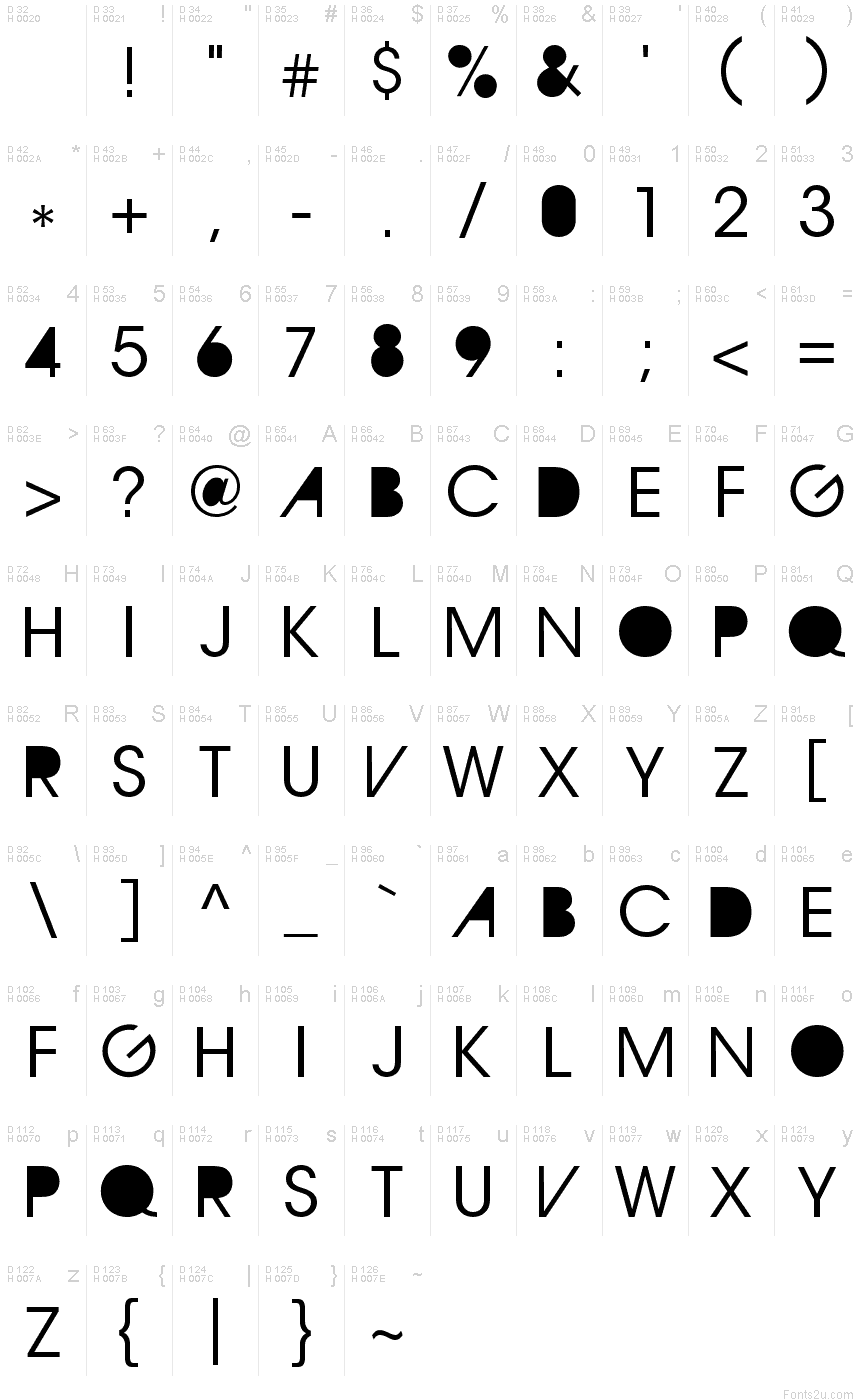
BM Sham Garde is a free experimental geometric display font built around abrupt shifts between hairline strokes and solid, oversized forms. Its clean circles, straight uprights, and steep diagonals create a stark modernist silhouette, with sharply cut negative spaces adding tension to the heavier letters.
That modernist, poster-driven character makes it especially convincing for cultural events and fashion campaigns. Album packaging and magazine covers can use the changing stroke weight to turn a name or phrase into an assertive piece of graphic structure. Across these settings, the link is its contrast between spare linear drawing and dense blocks, a device that lets the lettering echo grids, bars, and angular photography.
BM Sham Garde